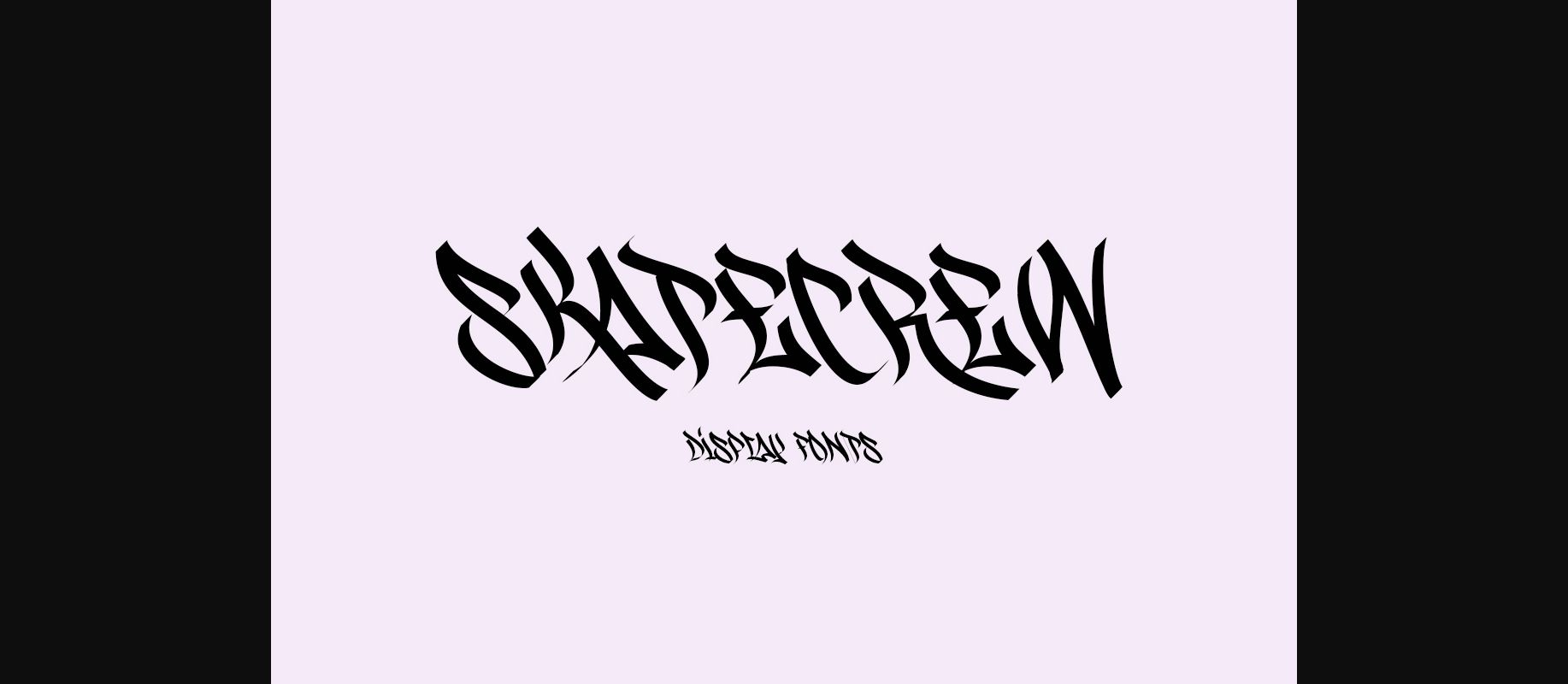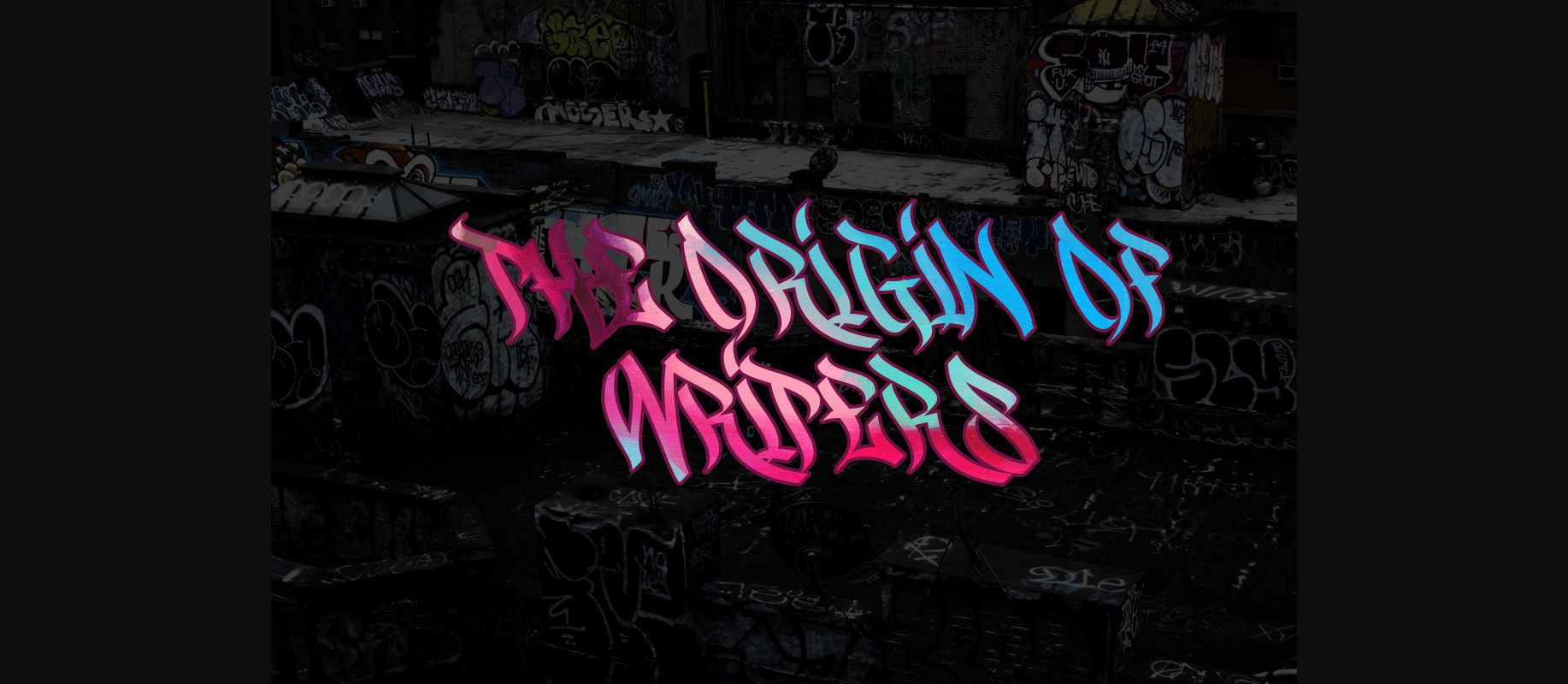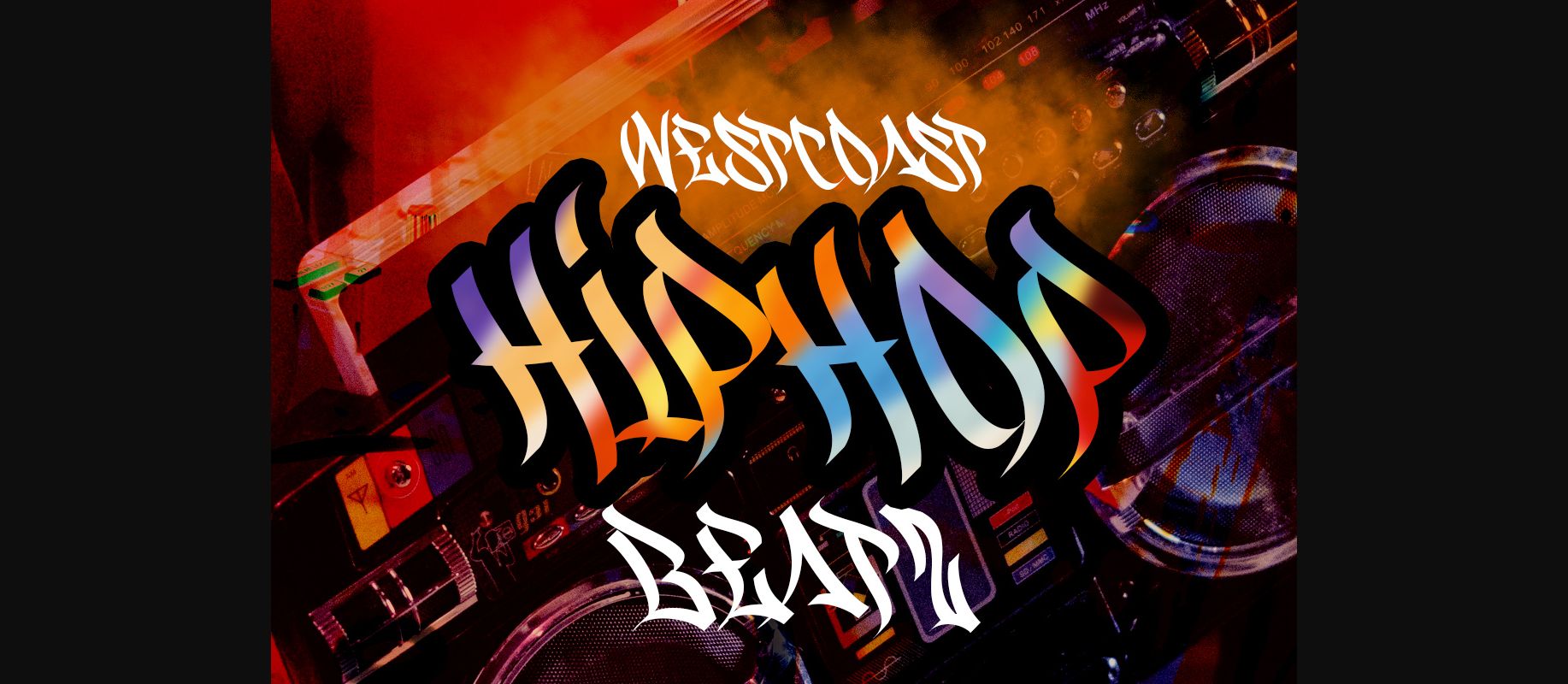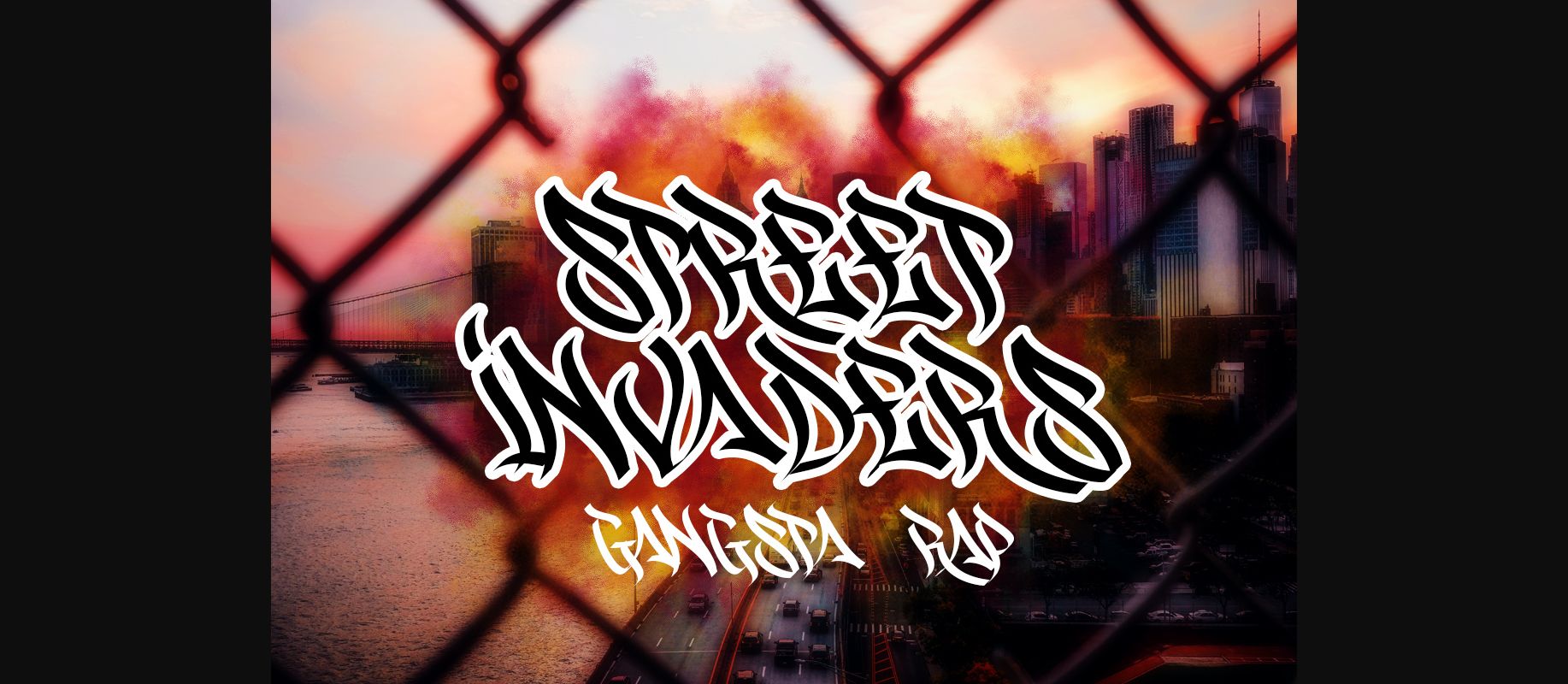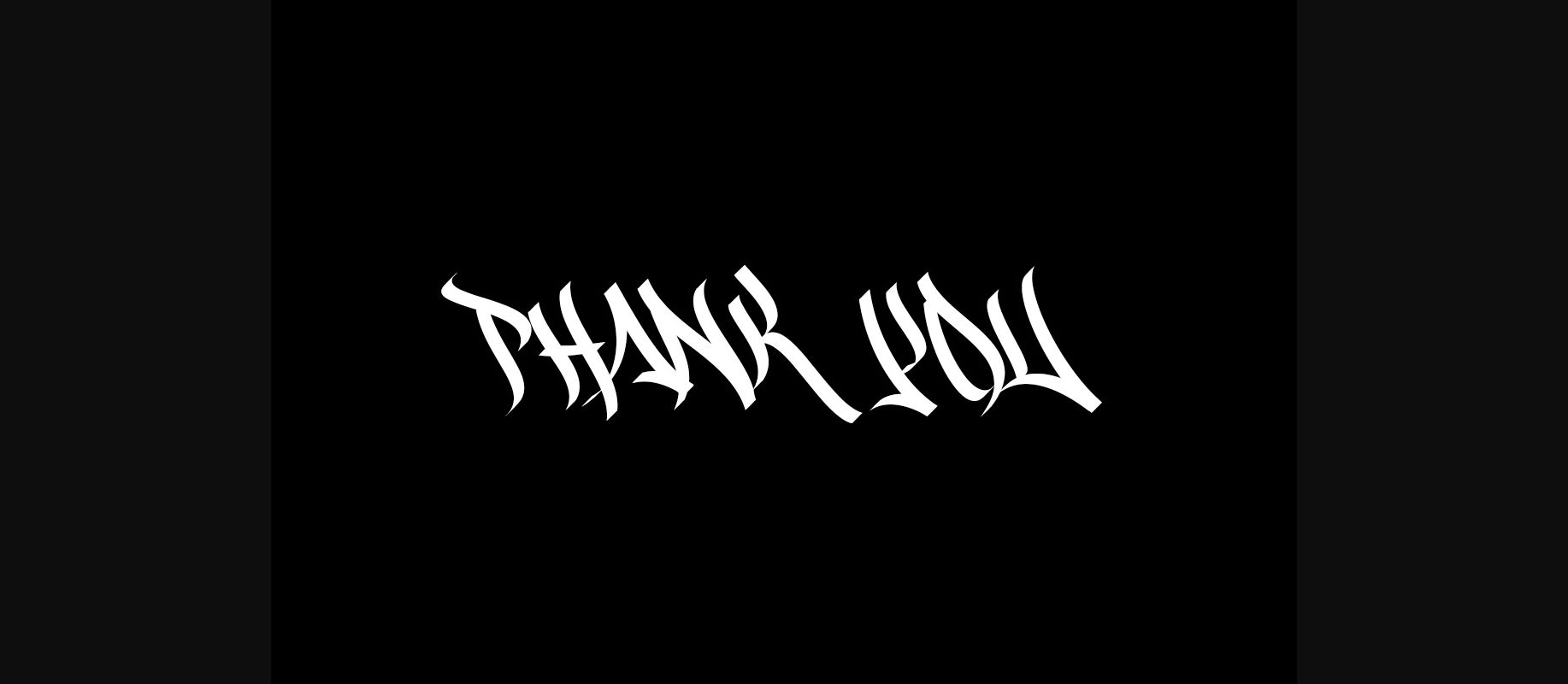
Skatecrew Font
About Skatecrew Font
Skatecrew is a wildstyle graffiti font. This amazing decorative font features a wildly funky characters using broad flat caps or broad marker that will add a great personal touch to any project that requires a street, urban and graffiti look! Try this fonts to make your next street style art project.